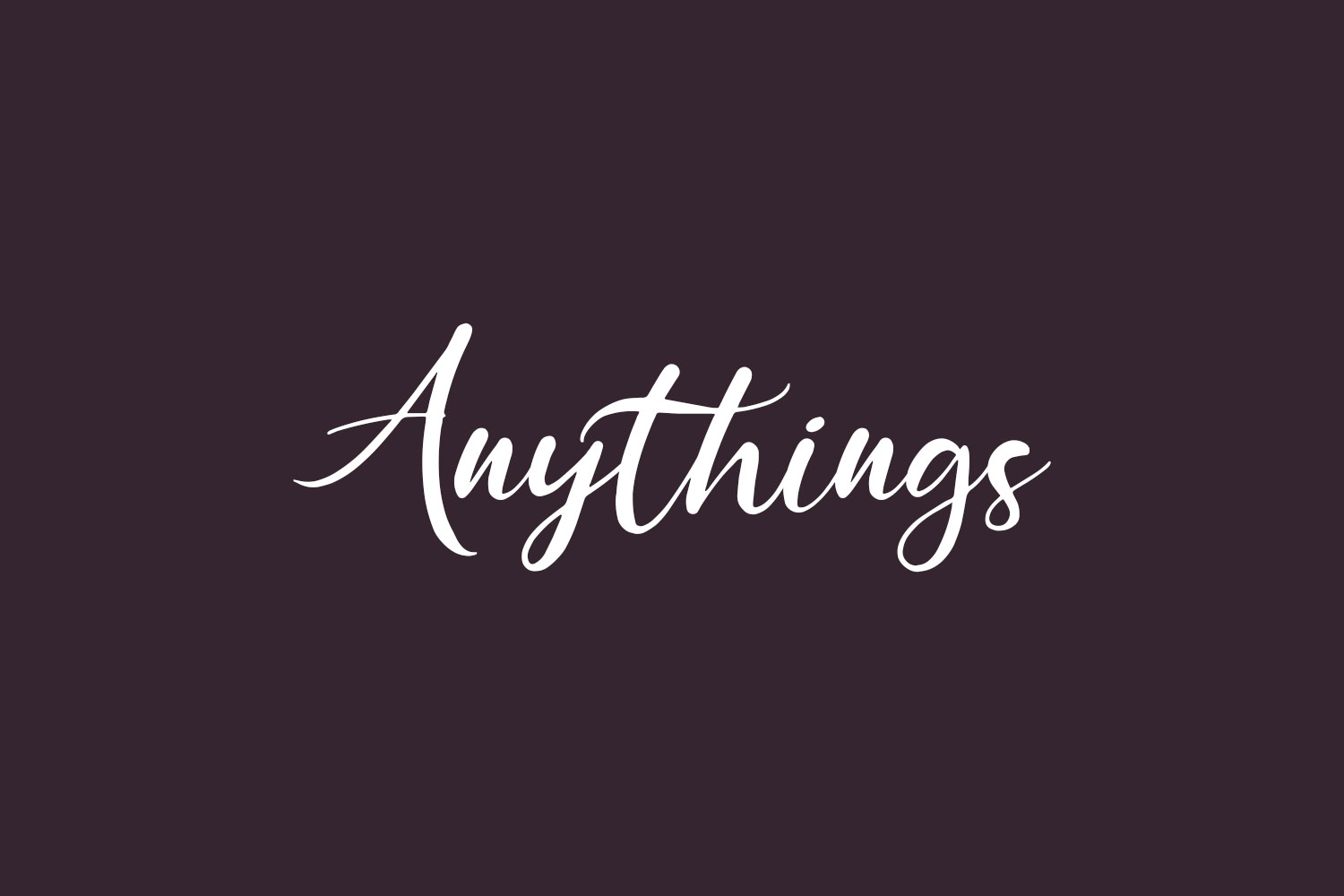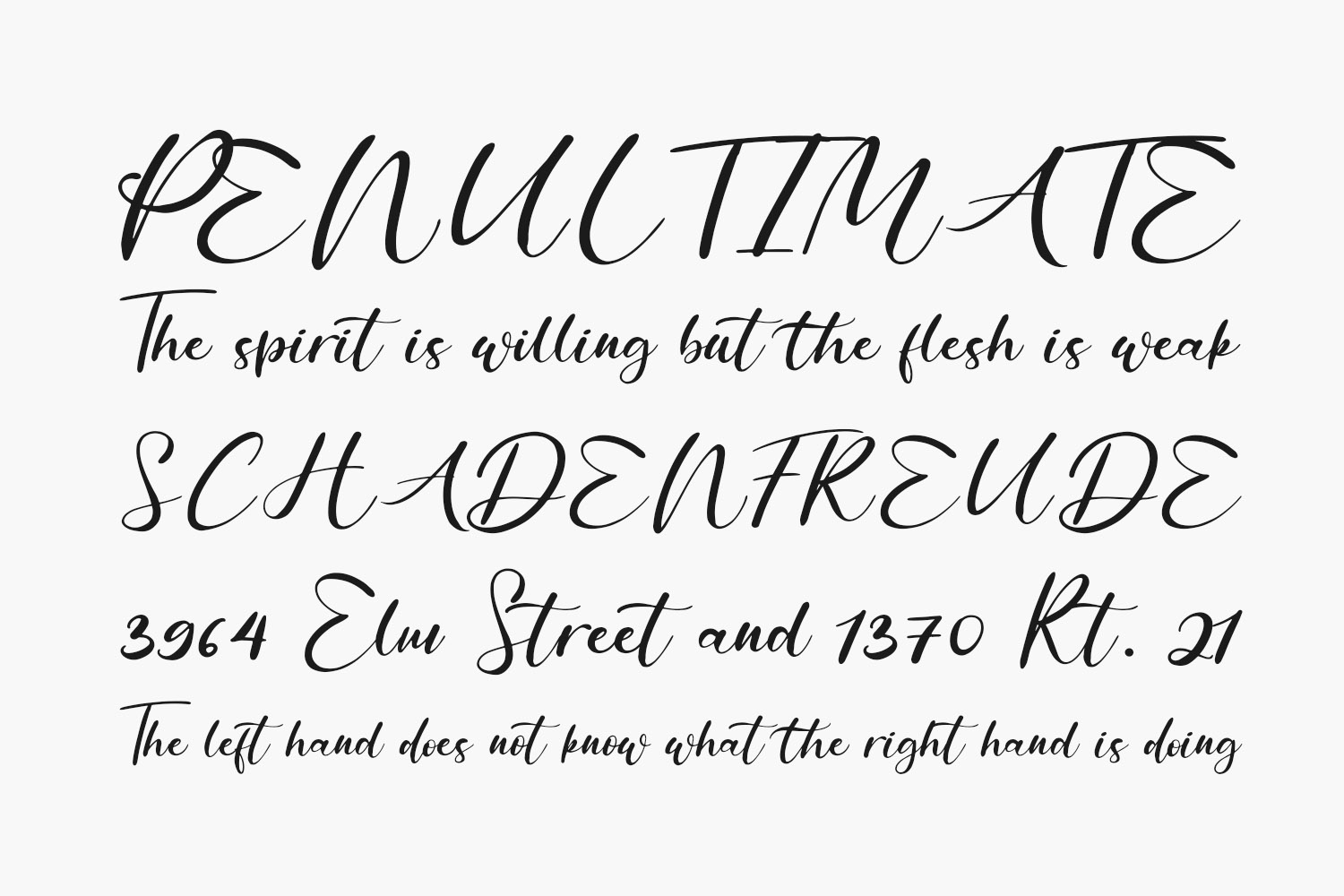
Anythings Free Font is an exquisite handwritten font, masterfully designed to become a true favorite. It maintains its classy calligraphic influences while feeling contemporary and fresh. Fall in love with it and bring your projects to the highest levels. Anythings Free Font was designed by StringLabs and is free for personal use only. Please purchase the full version for commercial use.